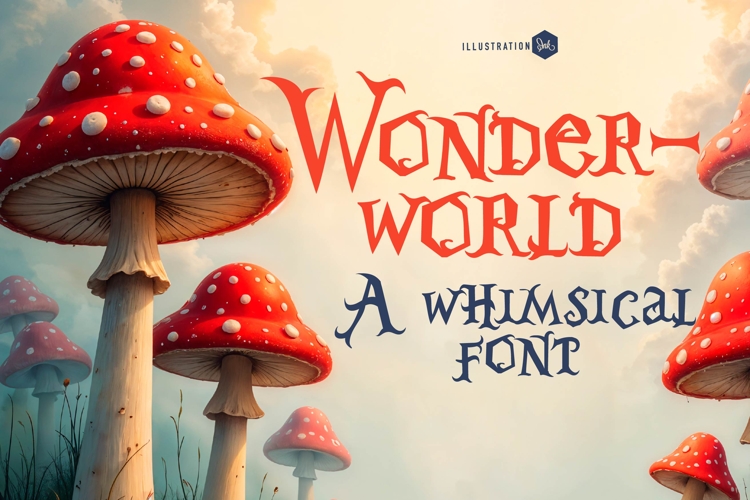
Wonderworld Font Family
This hand-crafted font is a whimsical, hand-crafted font with crafty, pointy lettering and some family members sporting florals.